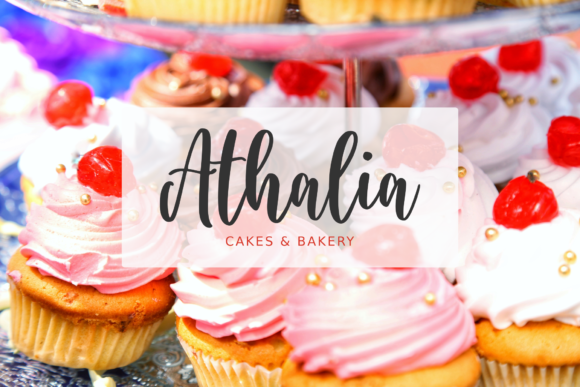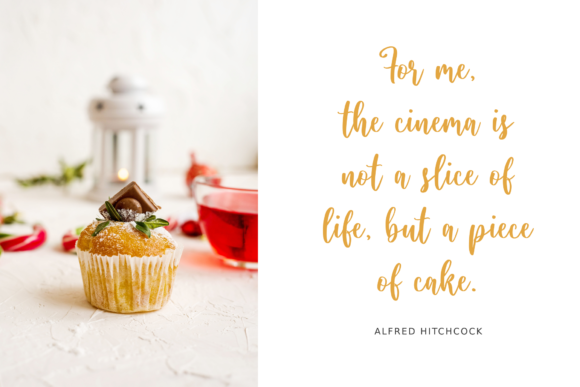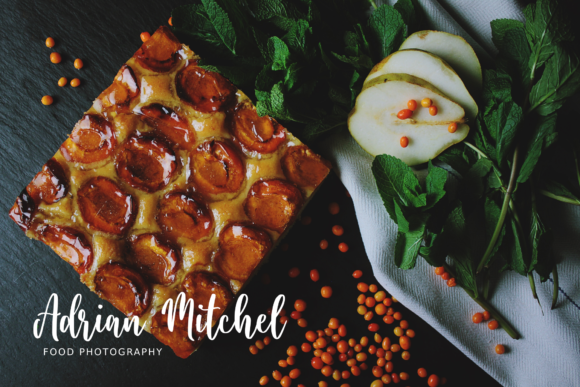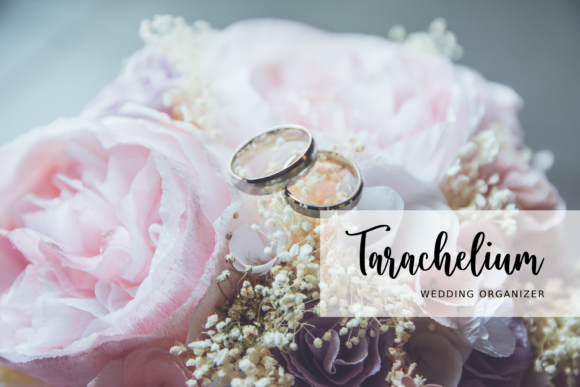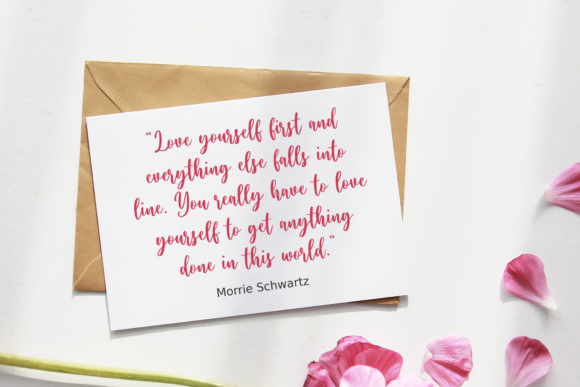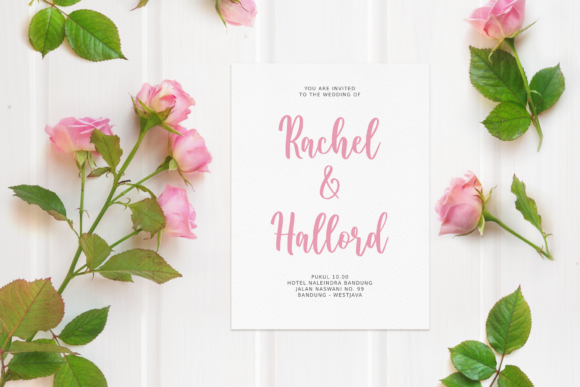
Introducing Butter Mallow Font: The Perfect Handwritten Font for Your Creative Projects
Are you a designer, crafter, or DIY enthusiast looking for a font that can add a touch of warmth and friendliness to your projects? Look no further than Butter Mallow Font, a modern handwritten font that is sure to capture the hearts of your audience. With its incredibly friendly feel, Butter Mallow Font is the perfect fit for all of your logos, branding, social media, and crafty DIY projects.
What Makes Butter Mallow Font So Special?
Butter Mallow Font is a unique and modern handwritten font that stands out from the crowd. Its friendly and approachable feel makes it perfect for projects that require a personal touch. Here are some of the key features that make Butter Mallow Font so special:
- Handwritten with love: Butter Mallow Font is carefully crafted by hand, giving it a personal and unique feel that is hard to replicate with machine-generated fonts.
- Modern and fresh: Despite its handwritten nature, Butter Mallow Font has a modern and fresh feel that makes it perfect for contemporary projects.
- Friendliness personified: The font’s friendly and approachable feel makes it perfect for projects that require a warm and welcoming tone.
Why Choose Butter Mallow Font for Your Projects?
There are many reasons why you should choose Butter Mallow Font for your projects. Here are just a few:
- Perfect for logos and branding: Butter Mallow Font is a great choice for logos and branding projects, as it can help to create a unique and memorable identity for your brand.
- Ideal for social media: The font’s friendly and approachable feel makes it perfect for social media projects, such as graphics, posts, and stories.
- Crafty DIY projects: Butter Mallow Font is also perfect for crafty DIY projects, such as handmade cards, invitations, and crafts.
How to Use Butter Mallow Font in Your Projects
Using Butter Mallow Font in your projects is easy. Here are a few tips to get you started:
- Pair it with other fonts: Butter Mallow Font pairs well with other fonts, such as sans-serif fonts, to create a unique and interesting contrast.
- Experiment with colors: The font looks great in a variety of colors, so don’t be afraid to experiment and find the perfect color scheme for your project.
- Use it consistently: To create a cohesive look, use Butter Mallow Font consistently throughout your project.
Tips and Tricks for Getting the Most Out of Butter Mallow Font
Here are a few tips and tricks to help you get the most out of Butter Mallow Font:
- Use it for headlines: Butter Mallow Font is perfect for headlines and titles, as it can help to grab the attention of your audience.
- Add some texture: Adding texture to your text can help to give it a more handmade feel, which pairs perfectly with Butter Mallow Font.
- Play with sizes: Experimenting with different font sizes can help to create visual interest and add depth to your project.
In conclusion, Butter Mallow Font is a modern handwritten font that is perfect for designers, crafters, and DIY enthusiasts. Its friendly and approachable feel makes it ideal for a wide range of projects, from logos and branding to social media and crafty DIY projects. With its unique and modern feel, Butter Mallow Font is sure to capture the hearts of your audience and help you to create a lasting impression.